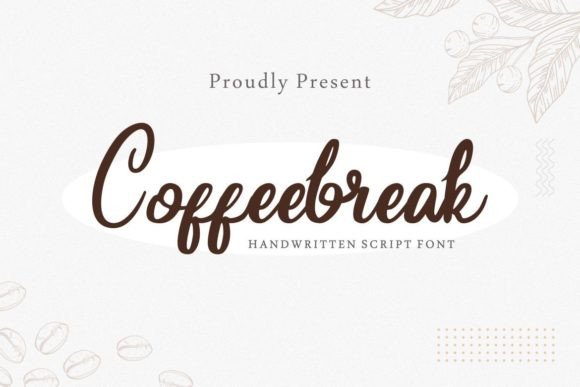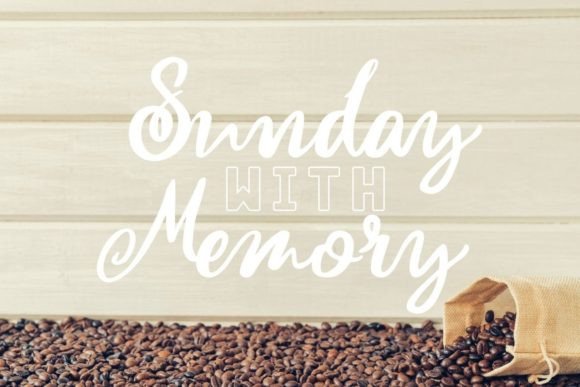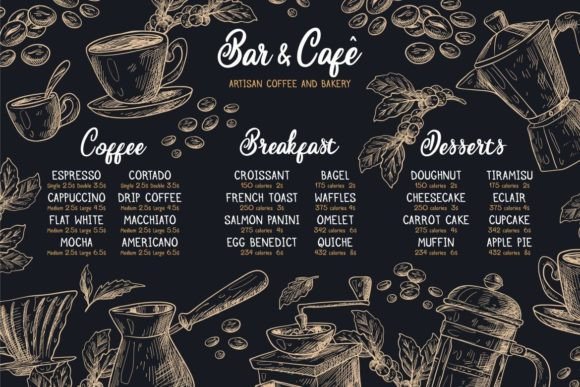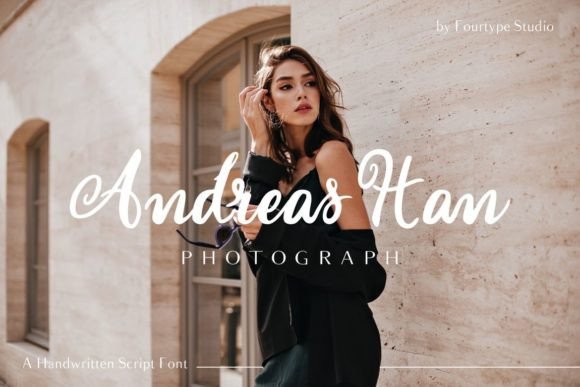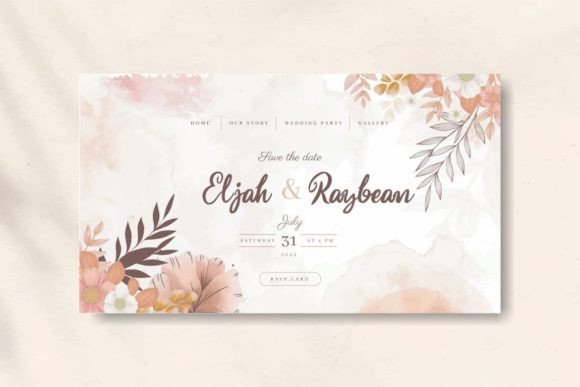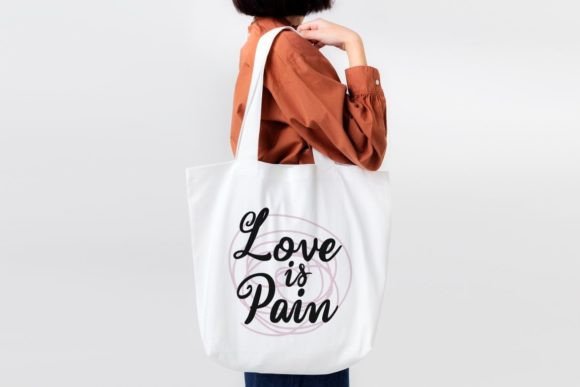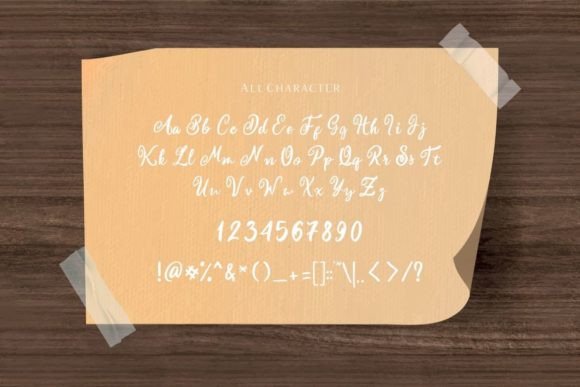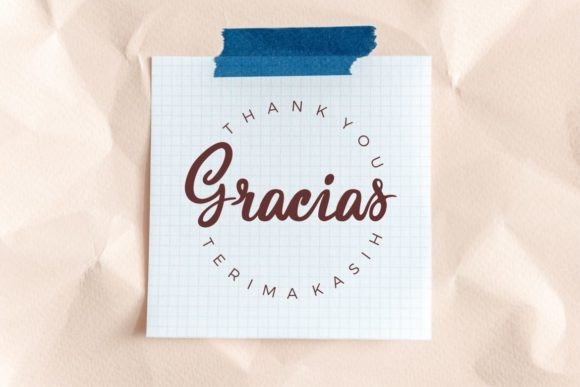
Coffeebreak Font
About Coffeebreak Font
“Coffeebreak” is a modern calligraphy font that adds a touch of contemporary elegance to your design projects. This versatile font is the perfect choice for a wide range of applications, from product packaging and branding projects to magazines, social media graphics, weddings, coffee shop materials, and any design where you want to convey a sense of sophistication.
The charm of “Coffeebreak” lies in its ability to seamlessly blend modernity with the elegance of calligraphy. Each character is meticulously designed to exude a sense of refinement and style, making it ideal for projects where you desire a contemporary and upscale look. Imagine using “Coffeebreak” for a coffee shop’s logo, where the font itself becomes a symbol of quality and taste.
For branding, product packaging, magazine covers, and various social media content, “Coffeebreak” adds a touch of class and sophistication to your designs. It has a contemporary quality that can elevate your projects and make them truly standout.
Additionally, “Coffeebreak” is highly adaptable and legible, ensuring that your text remains clear and easily readable, even in intricate or decorative designs. This attribute is particularly valuable when conveying important messages or brand identity in your projects.
In summary, “Coffeebreak” is more than just a font; it’s a design asset that brings together modernity and calligraphic elegance to enhance your creative work. Its contemporary style and versatility make it suitable for a variety of applications, and its ability to convey sophistication and refinement sets it apart. With “Coffeebreak” in your font collection, your design projects will exude a sense of contemporary class that leaves a lasting impression.